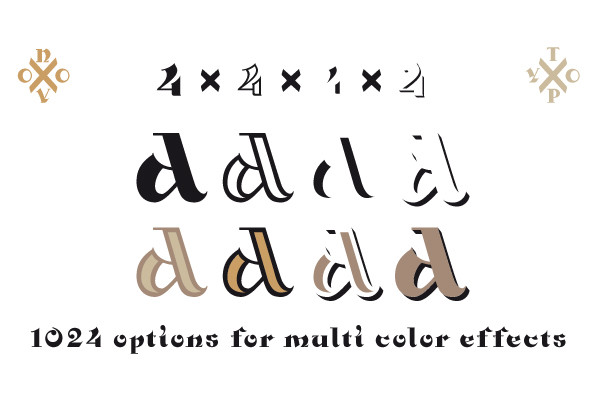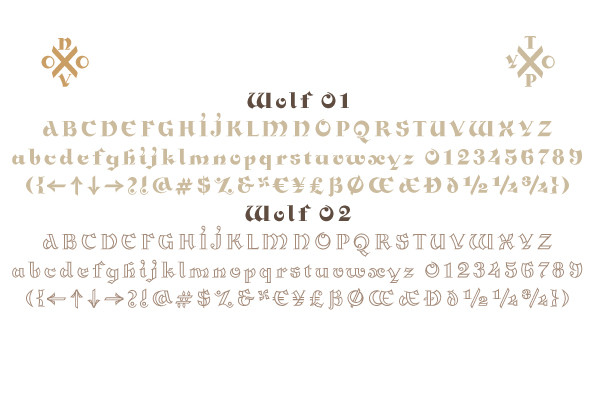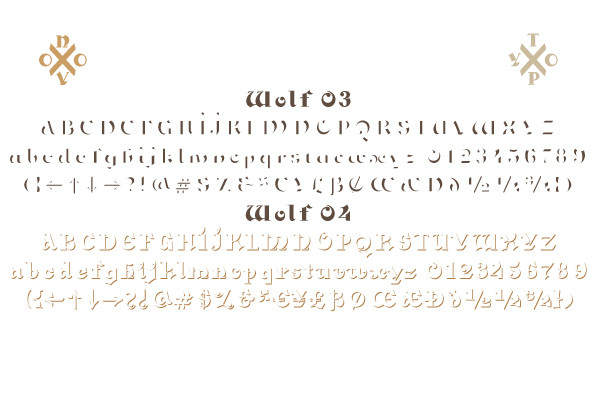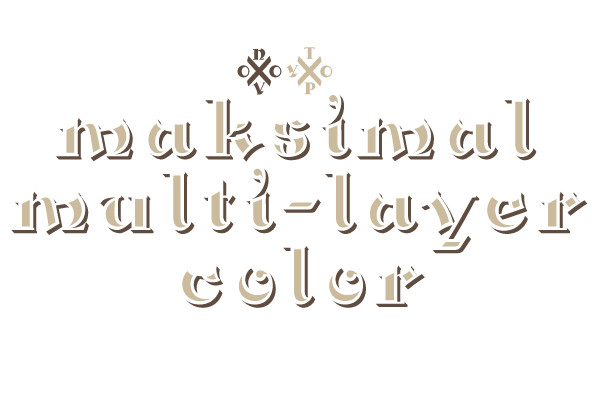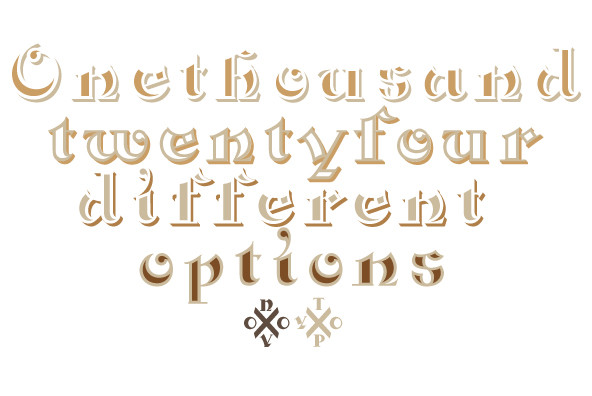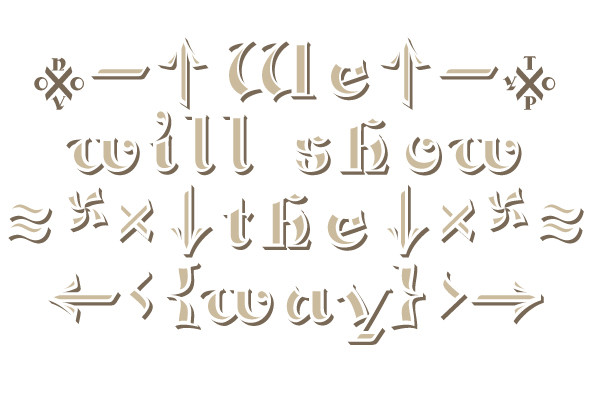
NT Wolf Font
Wolf is a package of four fonts. Wolf is perfect for multi-layered typography and the use of color in type. Wolf allows the user endless possibilities in color. Wolf is perfect for designing sophisticated logo's, fashionable headings or other beautiful display typography for print or web. The complete glyph set of Wolf contains a lot of extra elegant glyphs, swooshes and ligatures.
Designed by Novo Typo. Designers from Amsterdam, The Netherlands.